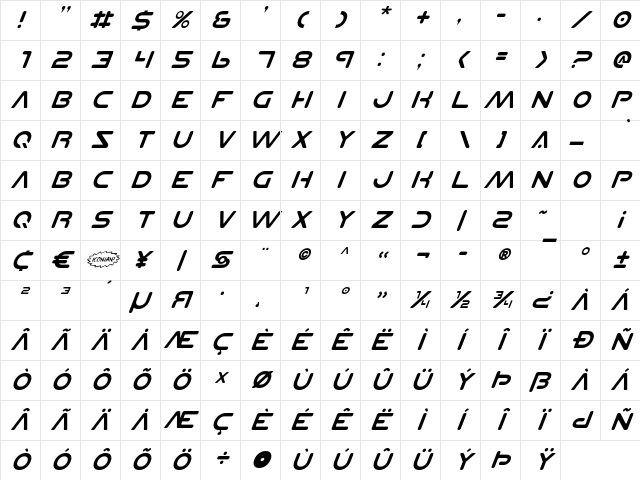
Planet NS Italic Italic Free Font
Planet NS Italic Italic
Design Context for Planet NS Italic
Planet NS Italic is a composed and adaptable typeface that performs quietly and consistently across a wide range of design contexts. The slanted form adds forward momentum and visual energy.
Pro Tip: Use Planet NS Italic for emphasis, pull quotes, and subheadings where its slanted energy can add rhythm to the layout.